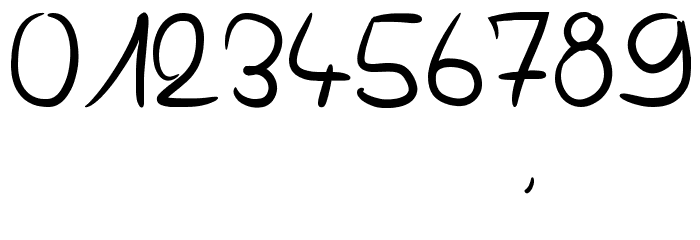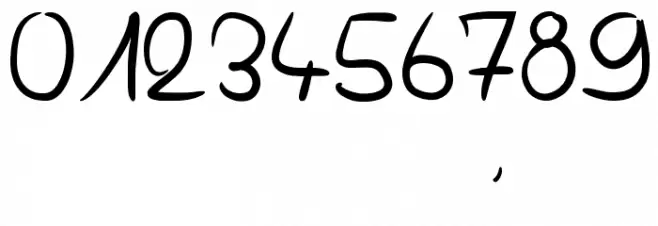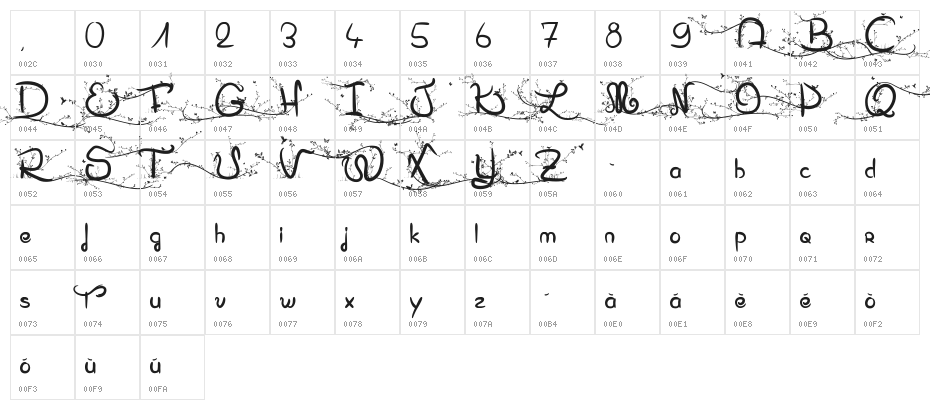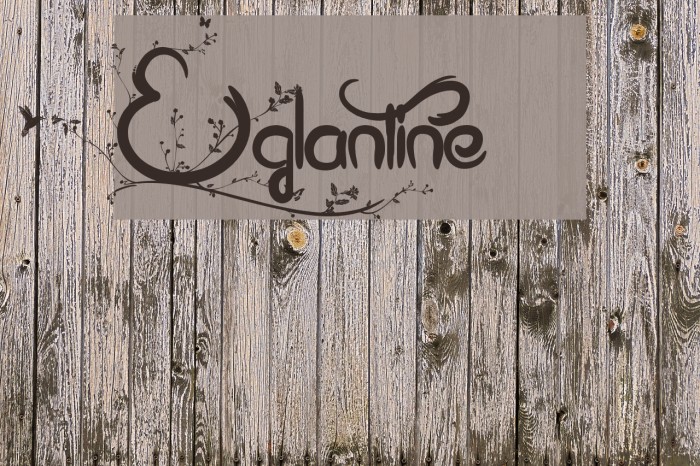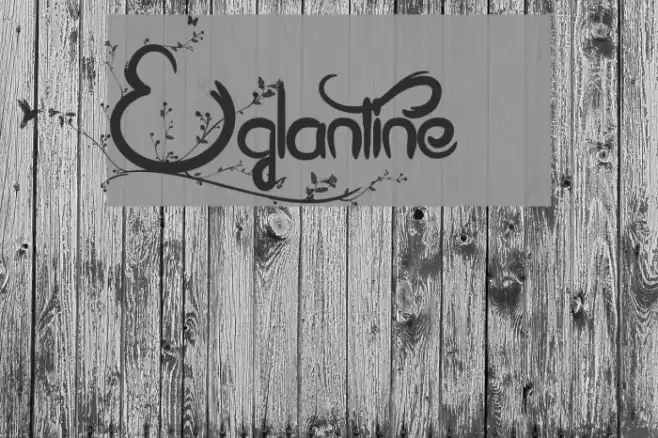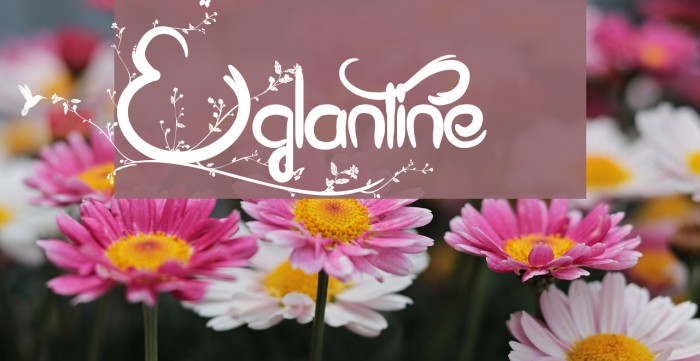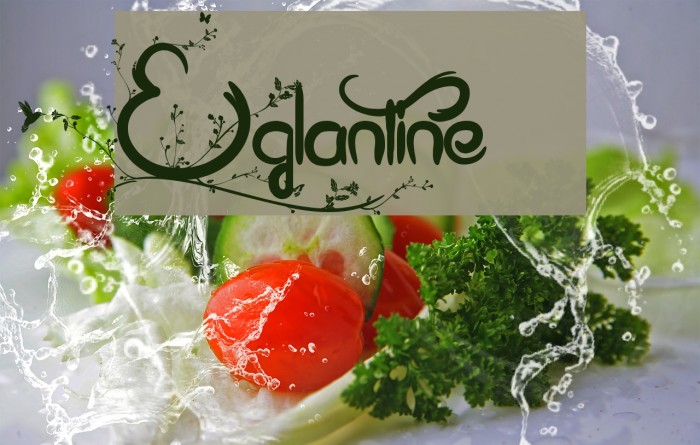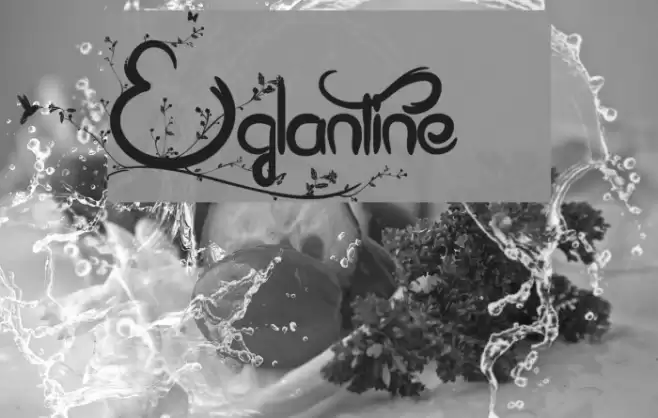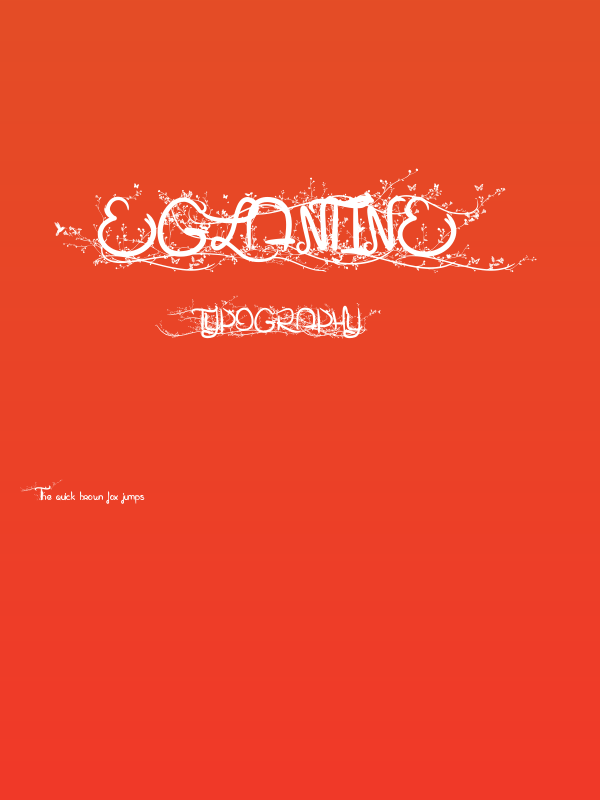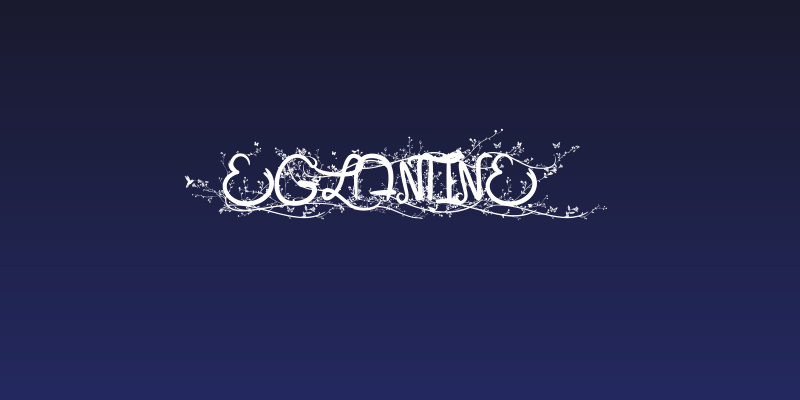
Eglantine Font
Eglantine Description
This font features a unique and artistic design, combining elements of nature with typography. The uppercase letters are adorned with intricate vine-like embellishments, creating a whimsical and organic appearance. The lowercase letters maintain a more traditional script style, offering a smooth and flowing look. The numerals are bold and slightly rounded, providing a playful yet elegant feel. Special characters are creatively integrated with the same vine motif, enhancing the overall aesthetic. This font is perfect for projects that require a touch of fantasy or nature-inspired themes.
| Proposed Projects | Ideal for fantasy-themed designs, nature-inspired branding, invitations, and decorative posters. |